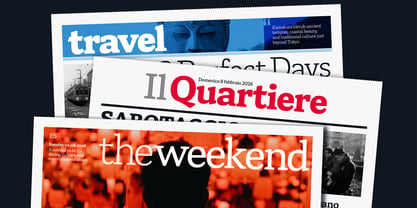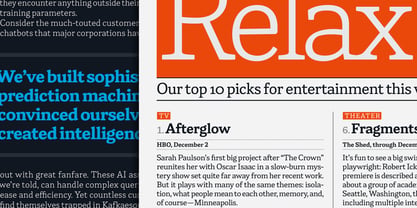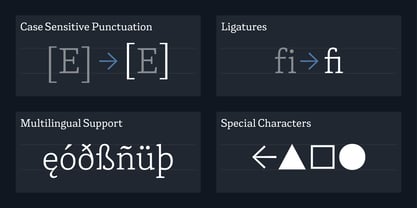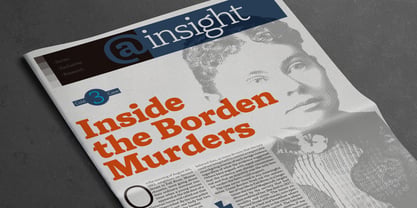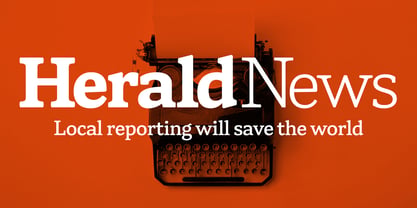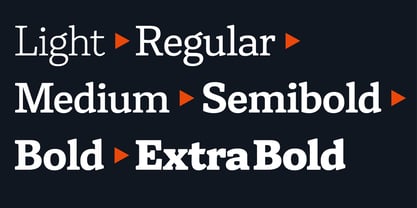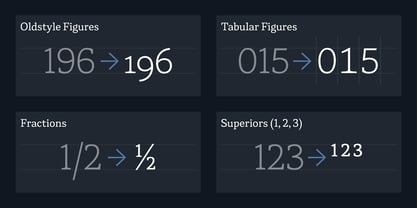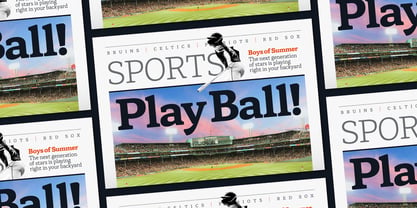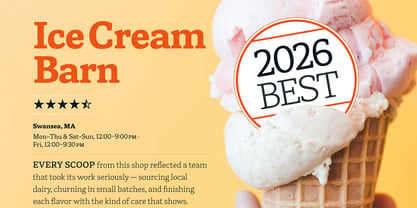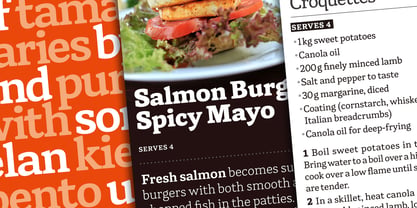
Herald News
The Herald News Font Family was designed by Kevin Foley and published by Kevin Foley Fonts. Herald News contains 6 styles and family package options. More about this family
Inspired by local journalism, Herald News is a versatile serif text family crafted for editorial work. It strikes a balance between a serious tone suitable for hard-hitting stories and a warm feel for those that bring a smile. The low-contrast design, featuring prominent serifs and rounded terminals, ensures excellent readability at small sizes while maintaining a commanding presence at display sizes. With six weights ranging from Light to Extra Bold, Herald News transitions seamlessly from body copy to striking front-page headlines. This font family is equipped to handle any narrative demands. Its OpenType features enhance typographic precision, offering three figure styles, fractions, case-sensitive punctuation, and an extensive set of special characters tailored for the diverse needs of real publication work. Ideal for branding, web design, and editorial projects, Herald News combines functionality with aesthetic appeal, making it a reliable choice for any written content.